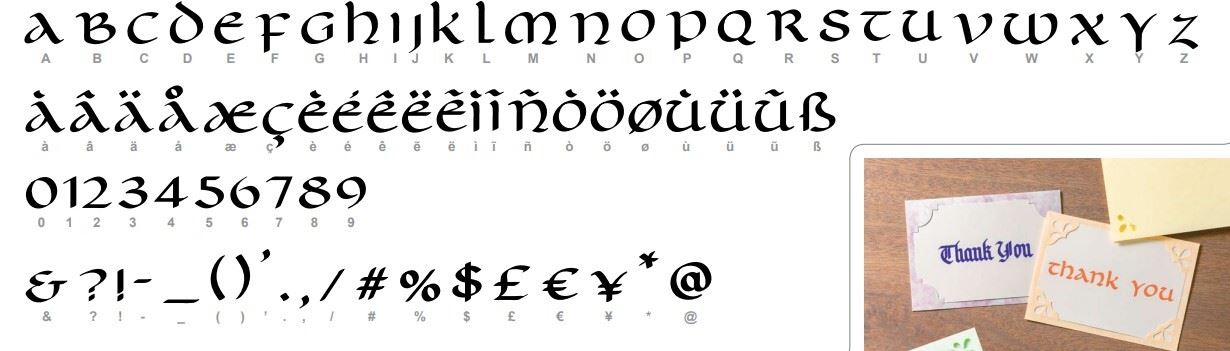
The Calligraphy Font Collection – Gothic and Uncial Fonts expands your creative possibilities with beautifully styled decorative lettering designed for use with your ScanNCut SDX machine. Featuring elegant gothic and uncial-inspired fonts, this collection is perfect for adding a distinctive handwritten look to your projects.
Ideal for cards, invitations, envelopes, gift tags, and decorative paper crafts, these fonts pair perfectly with the Calligraphy Starter Kit to help create eye-catching personalised designs.
Whether you’re creating themed projects, decorative stationery, or artistic lettering, this font collection adds extra style and versatility to your calligraphy projects.
• Includes gothic and uncial style calligraphy fonts
• Ideal for cards, invitations, tags, and paper crafts
• Designed to expand your calligraphy design options